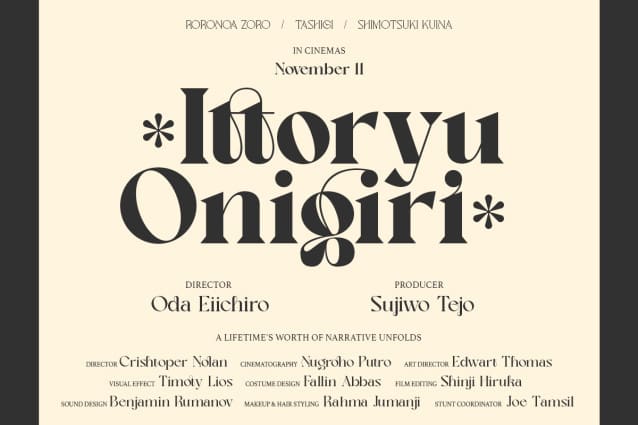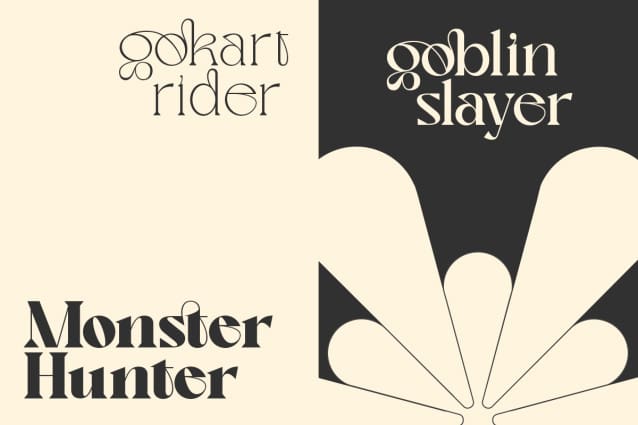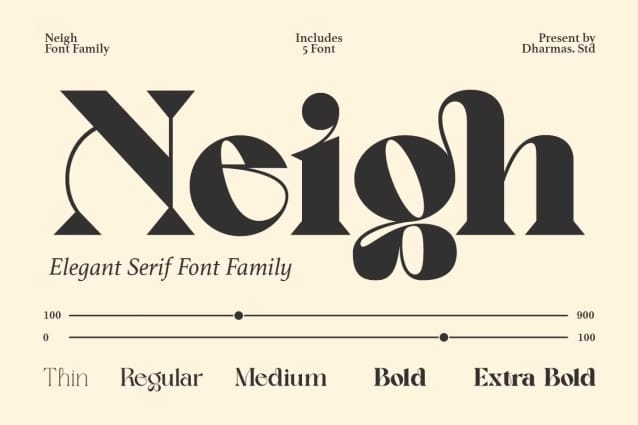
Neigh Font
Neigh Font is a fancy modern vintage serif typeface with beautiful ligatures, tons of special alternative glyphs, multilingual support.
Neigh Font comes in 5 font styles (Thin, Regular, Medium, Bold and ExtraBold). Its weight is superior in posters, social media, headlines, magazine titles, clothing, large print formats – and wherever you want to be seen. Inspired by the style of design that is currently popular, this is the answer to all the needs of every idea that you will pour into this modern and vintage era.